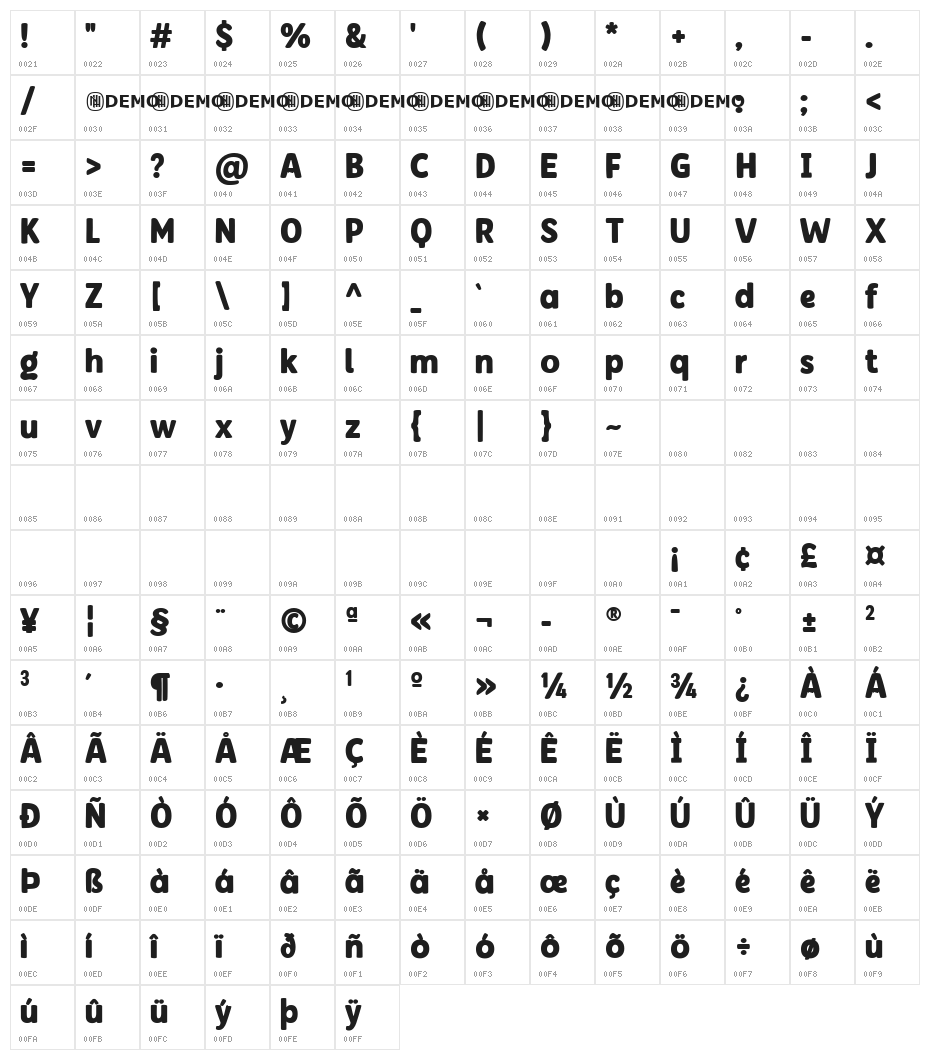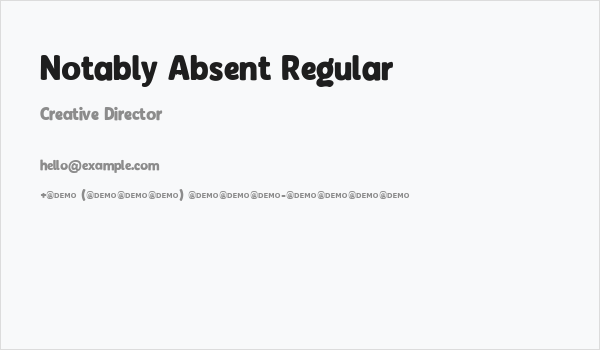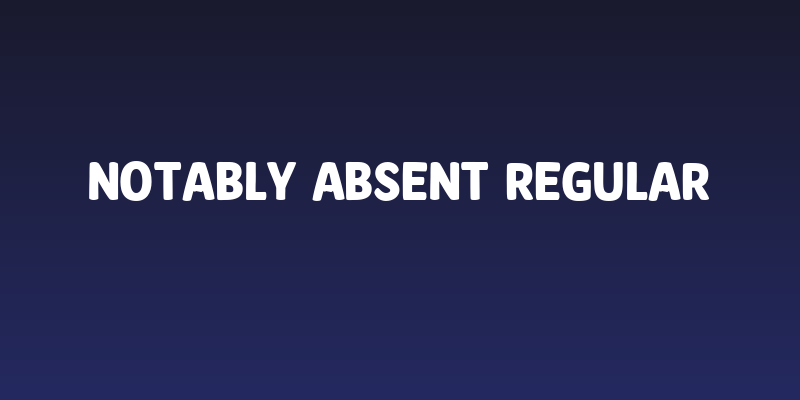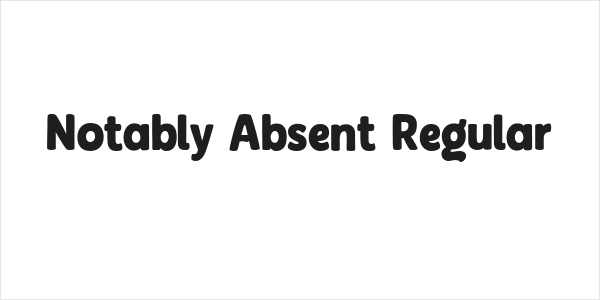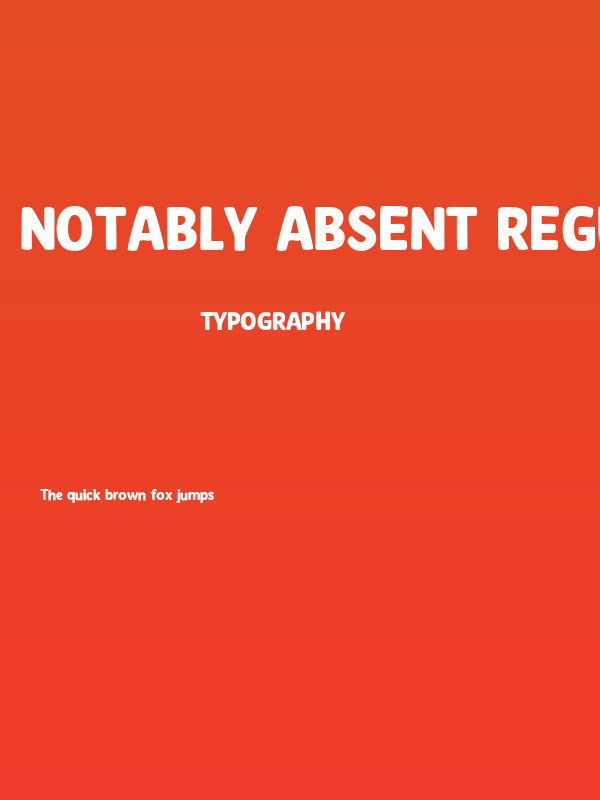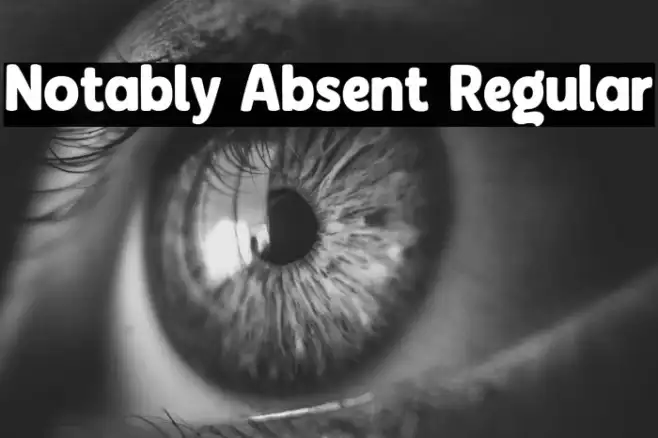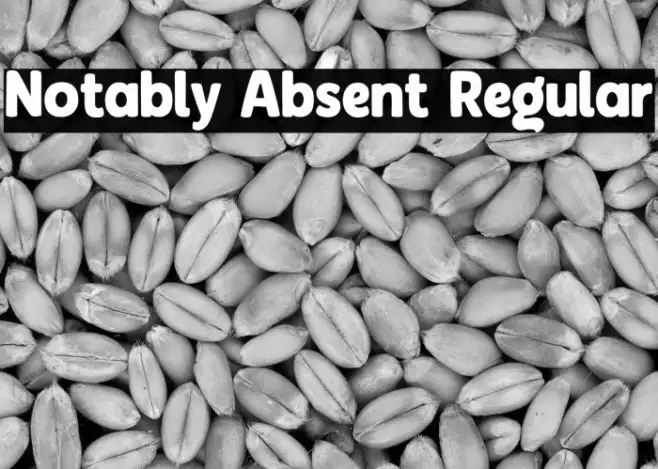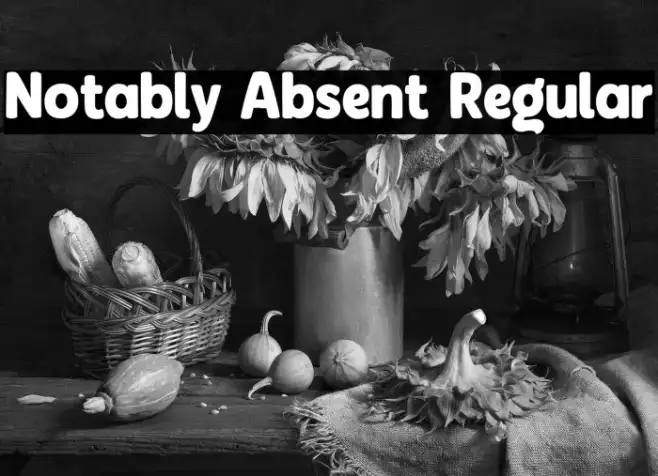
Notably Absent Regular Font
Notably Absent Regular Description
This font features a bold and rounded style, characterized by its thick strokes and smooth curves. The uppercase letters are uniform in height, creating a strong and cohesive appearance. The lowercase letters maintain a consistent roundness, enhancing readability while adding a playful touch. The numerals and special characters follow the same bold and rounded design, ensuring a harmonious look across all elements. This font's overall aesthetic is modern and approachable, making it suitable for a variety of applications where a friendly and impactful presence is desired.
| Proposed Projects | Ideal for branding, headlines, posters, and any design project requiring a bold and friendly typeface. |